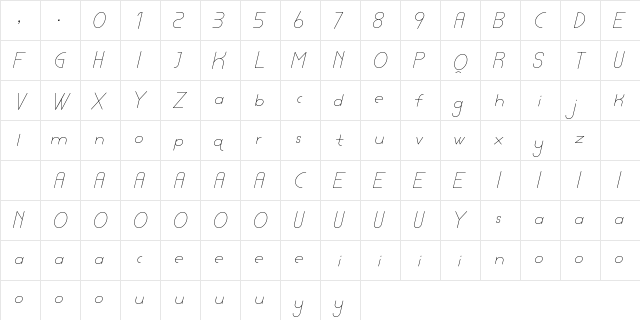
Lamborgini Thin Italic Regular
| Designer | Ikrar Bey Khubaib |
Design Context for Lamborgini Thin Italic Typeface
Lamborgini Thin Italic is a composed and adaptable typeface that performs quietly and consistently across a wide range of design contexts. Its italic angle brings a sense of urgency and motion to the letterforms. Its slender proportions lend an understated elegance to any composition.